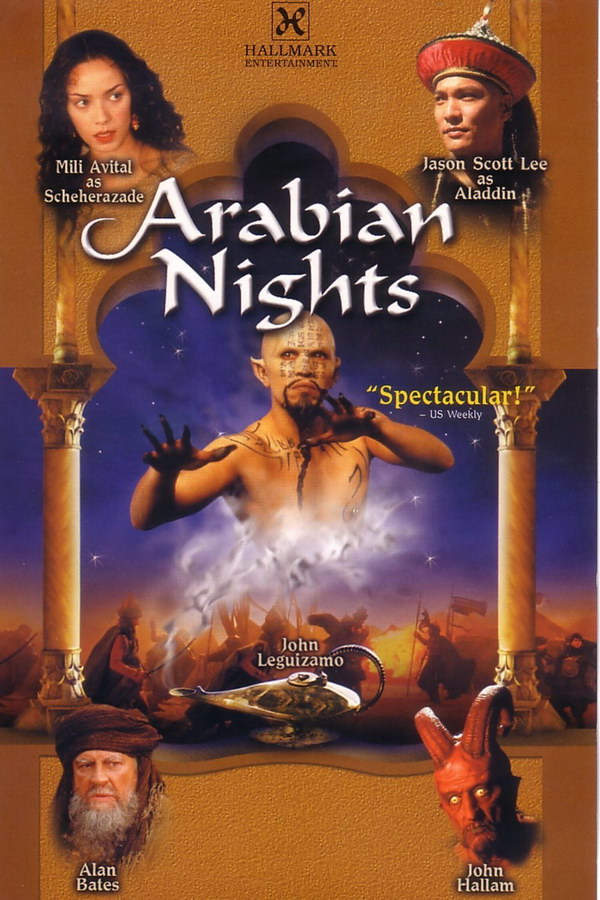
Arabian Nights Font
AnimationArabian Nights is a TV adaptation of classic Middle Eastern folk tales, including Aladdin, Sinbad, and Ali Baba. It features a mix of live-action and animation and explores the magical world of the Middle East.
The title of the ''Arabian Nights'' miniseries displayed on the poster features a font that closely resembles Ondine. Designed by Adrian Frutiger, Ondine has letters resembling a broad-tipped pen. You can learn more about the font here.